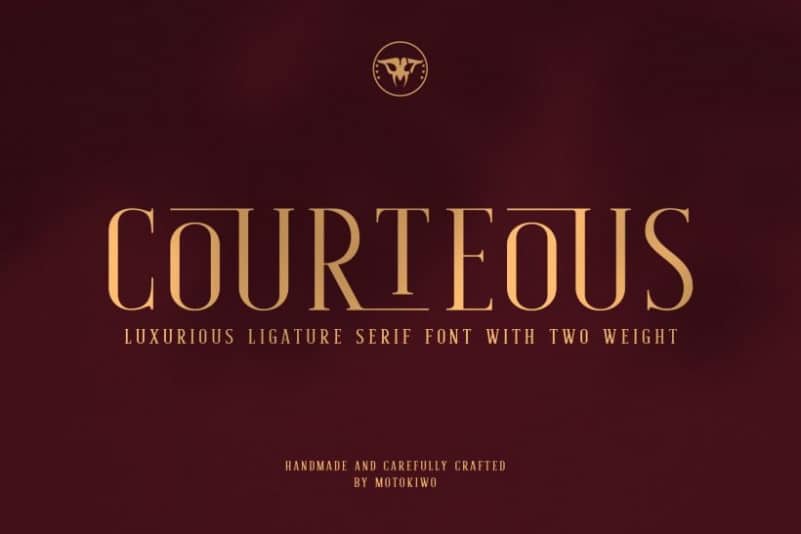
Courteous Serif Font
Introducing Courteous Font – is a Serif typeface that is suitable both for a pleasant experience in reading texts as well as for striking headlines and for subtext applications with the heavier weights.